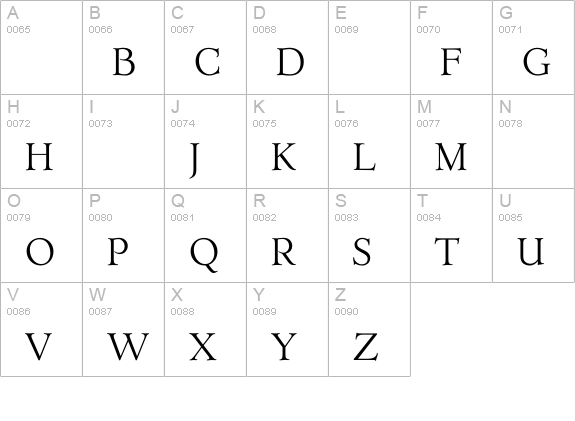
ErasmusLightExpert Font Details
ErasmusLightExpert font is a modern and elegant typeface designed for a wide range of design projects. With its sleek lines and sophisticated curves, this font exudes a sense of professionalism and creativity. Perfect for titles, headings, and body text, ErasmusLightExpert font adds a touch of refinement to any design. What sets ErasmusLightExpert font apart is not only its aesthetic appeal but also its versatility. Whether you're creating a logo, website, poster, or any other design, this font will elevate your work to the next level. And the best part? ErasmusLightExpert font is free to download at FontsMarket.com! So you can enhance your projects with this premium font without breaking the bank. Don't miss out on the opportunity to add this stylish and versatile font to your design toolkit. Download ErasmusLightExpert font today and take your designs to new heights!